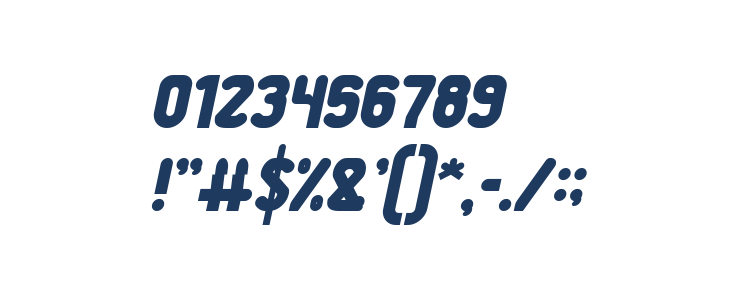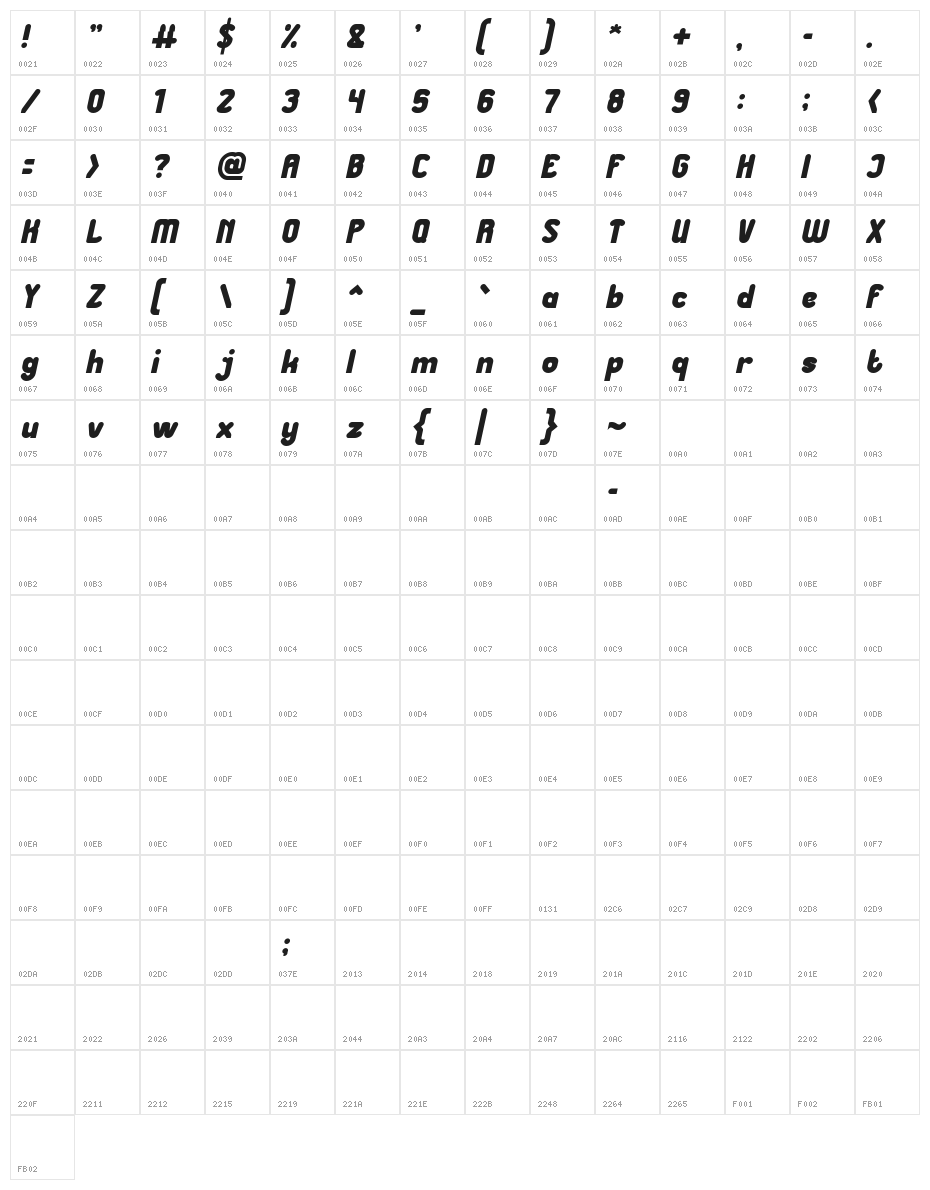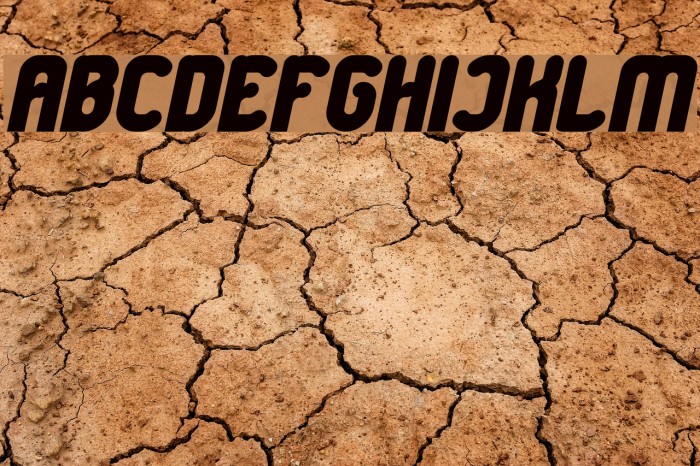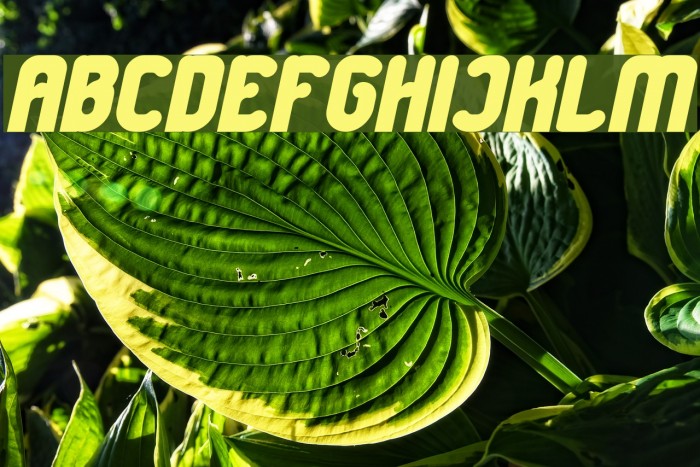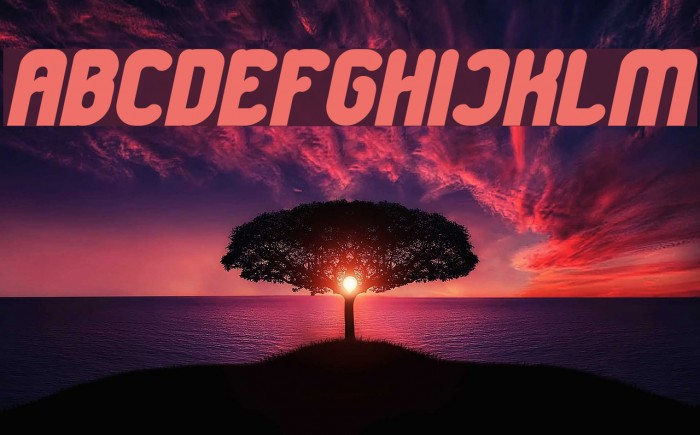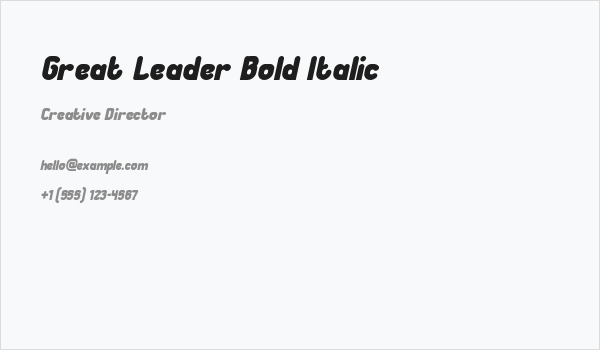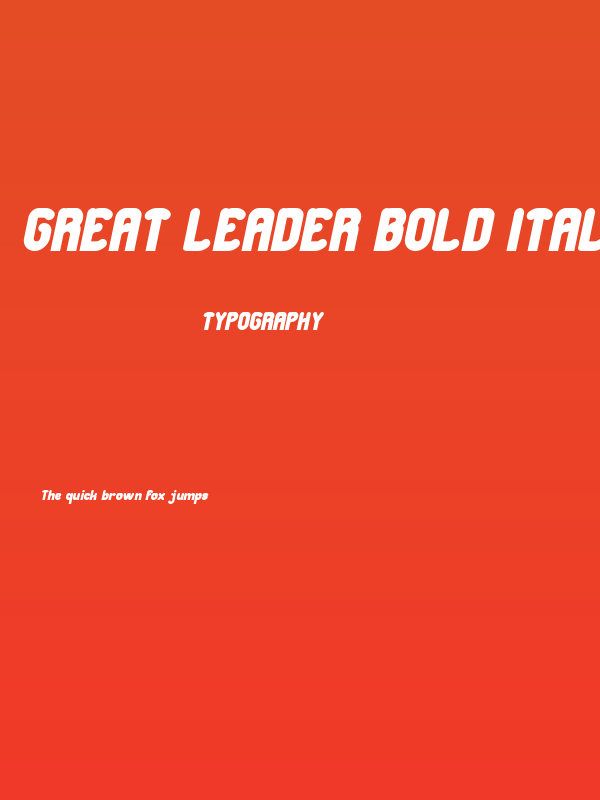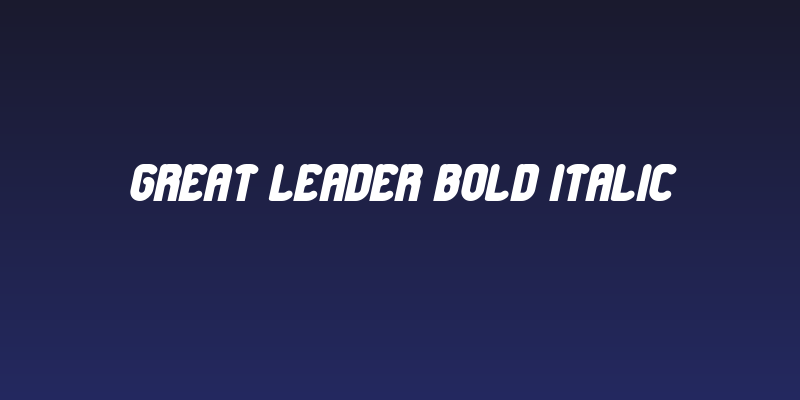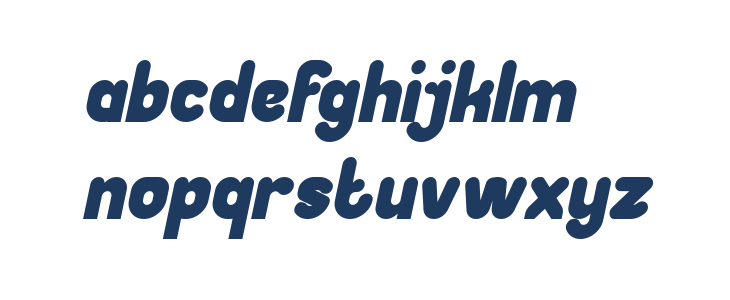
Great Leader Bold Italic Font
Great Leader Bold Italic Description
This bold and italic typeface features a strong, dynamic presence with its thick strokes and slanted characters. The uppercase and lowercase letters are designed with rounded edges, giving a friendly yet assertive look. The numbers and special characters maintain the same boldness, ensuring consistency throughout. The font's overall style is modern and slightly playful, making it suitable for attention-grabbing designs. Its bold weight and italic slant add a sense of movement and energy, perfect for making statements.
| Proposed Projects | Ideal for branding, headlines, posters, and any design requiring a bold statement. |